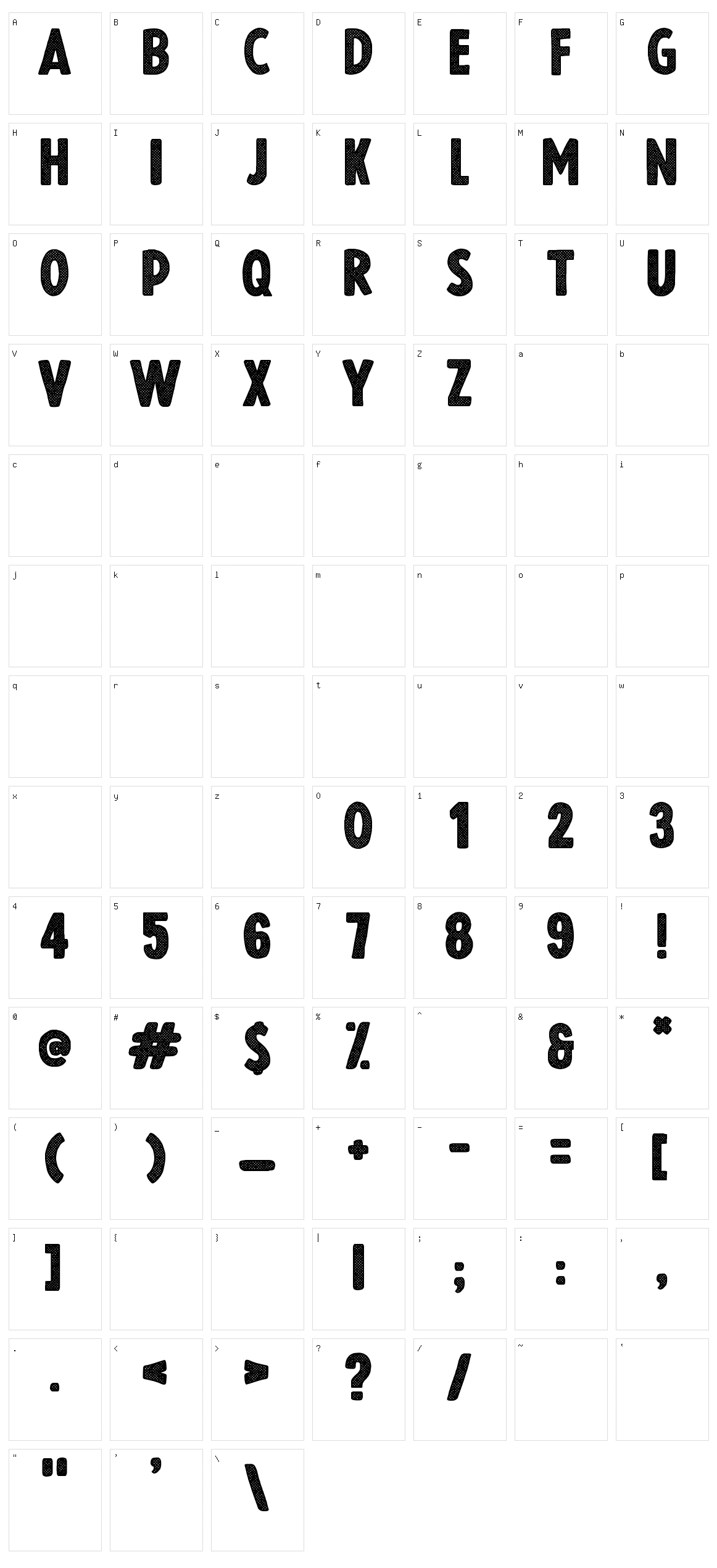
The free font Vintage Display is carefully designed by imagex, showcasing a thoughtful balance of creativity and usability and falls under the Eroded font style. When you download the ZIP file, it contains only 132.83 KB of font files, making it lightweight and quick to download. Please review the license details below to understand permitted usage and distribution rights. If license information is not available, we recommend using this font for personal projects only or contacting the author directly for commercial usage permissions.